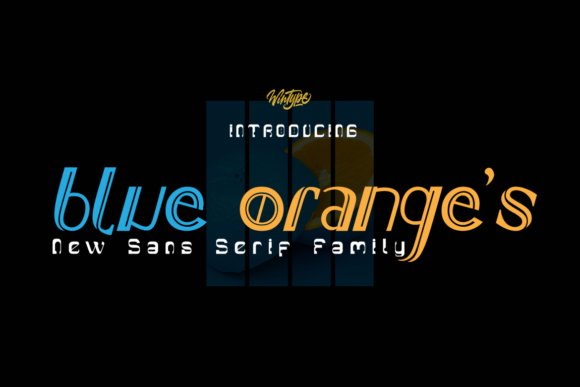
The Perfect Typography Companion
There’s something magical about the moment when a design comes together. You’ve poured your heart and soul into a project, and suddenly, it’s alive with color, texture, and emotion. For many of us, typography plays a crucial role in bringing our creations to life. And that’s where Blue Orange’s Font comes in – a stunning display font that’s sure to elevate your craft.
With Blue Orange’s Font, you’ll be able to add a touch of modern sophistication to your cards, branding, labels, and more. This versatile font is perfect for designers looking to add a unique flair to their work. Whether you’re a seasoned pro or just starting out, Blue Orange’s Font is a valuable addition to your design toolkit.
Key Features of Blue Orange’s Font
- Size: The font family consists of 12 weights, ranging from Thin to Black, providing flexibility for various design applications.
- Unique Characteristics: The font features a unique blend of modern and vintage elements, with subtle nuances that evoke a sense of sophistication and elegance.
- Kerning and Ligatures: The font includes advanced kerning and ligature pairs, ensuring seamless text flow and professional-looking typography.
Designer Review: Blue Orange’s Font
As a designer, I’ve had the chance to work with various fonts, but Blue Orange’s Font has caught my attention. Here’s my honest review.
- Friendly and approachable feel: The font exudes a sense of friendliness, making it perfect for social media platforms, blogs, or websites that aim to connect with their audience.
- Good legibility: Blue Orange’s Font is easy to read, even at smaller sizes, which is a must-have for digital content.
- Clean and modern aesthetic: The font’s design is sleek and contemporary, giving it a timeless appeal.
- Lack of versatility: While the font works well in digital formats, it may not be the best choice for print materials, as it can appear somewhat flat and lacking in depth.
- No bold weight: The font’s bold weight is limited, which can make it challenging to create visually appealing headings and titles.
Overall, Blue Orange’s Font is a solid choice for digital content creators who want a friendly, modern, and approachable font. However, it may not be the best fit for print materials or projects that require a wide range of font weights.
Blue Orange’s Font is ideal for creative projects, such as:
- Infographics
- Posters
- Business cards
- Marketing materials
For optimal results, use Blue Orange’s Font in conjunction with bold, bright colors and clean typography.